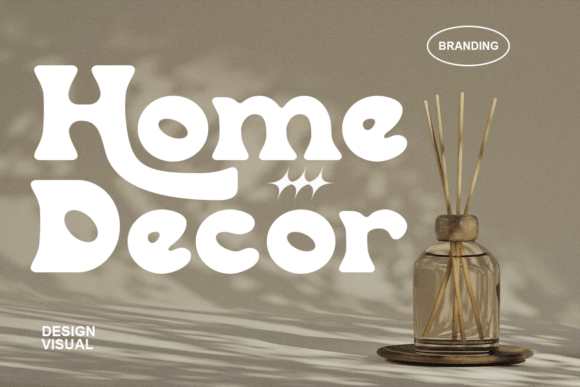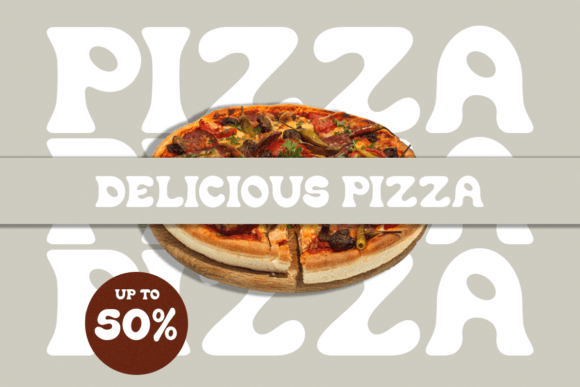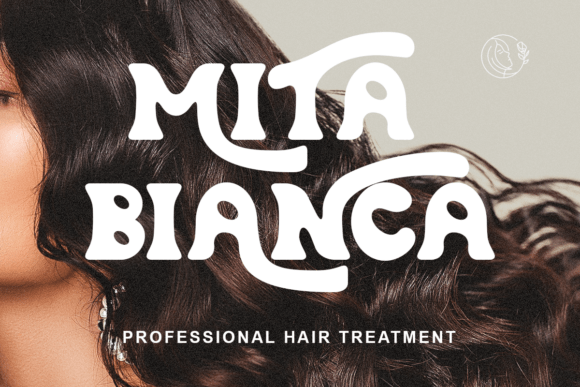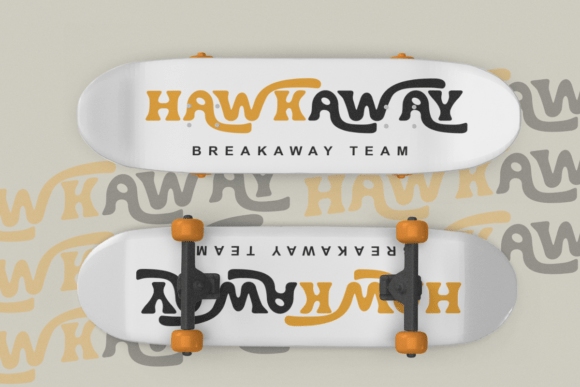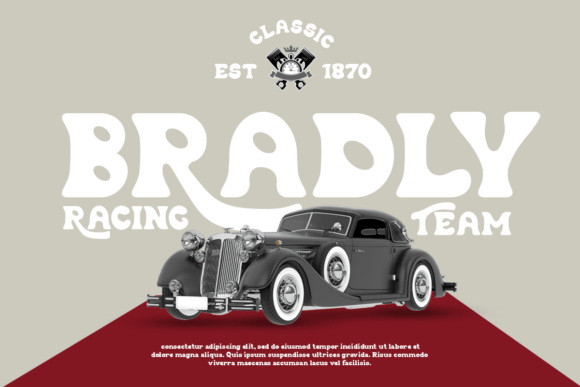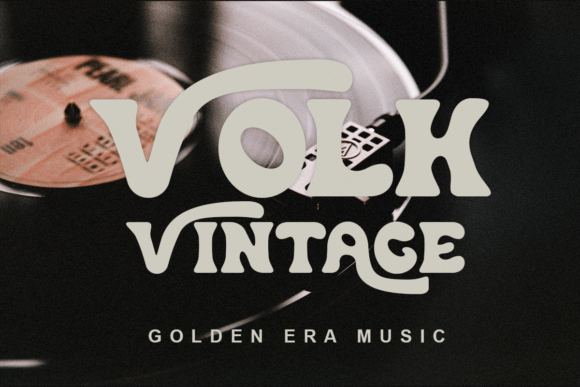
Introduction to Roleya Regular Font
Roleya Typeface – A Groovy Bold Serif Font Roleya is a groovy bold serif that blends seventies optimism with contemporary polish.
Broad, confident letterforms and softly flared, rounded serifs give it a friendly swagger, while smooth curves and compact proportions pack lines with rhythm and punch Sturdy, even strokes, open counters, and a tall x-height keep headlines crisp across print and screens.
Key Features of Roleya Regular Font